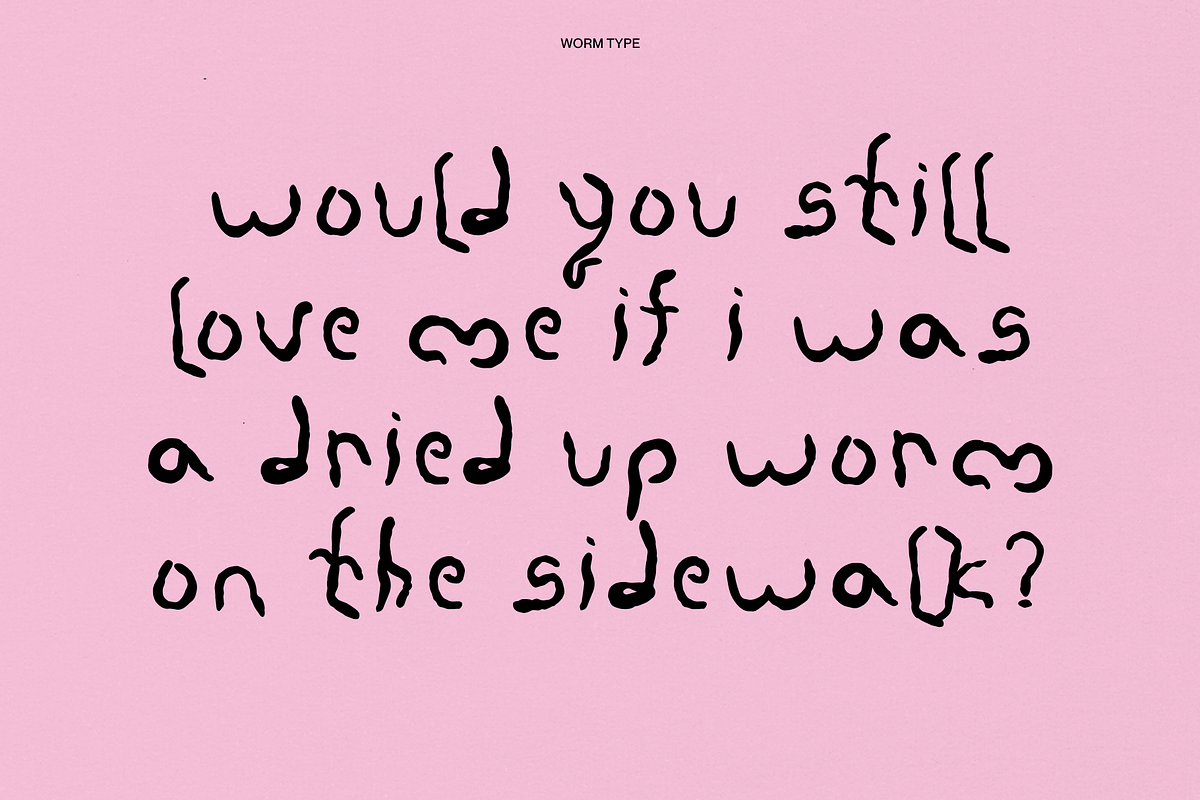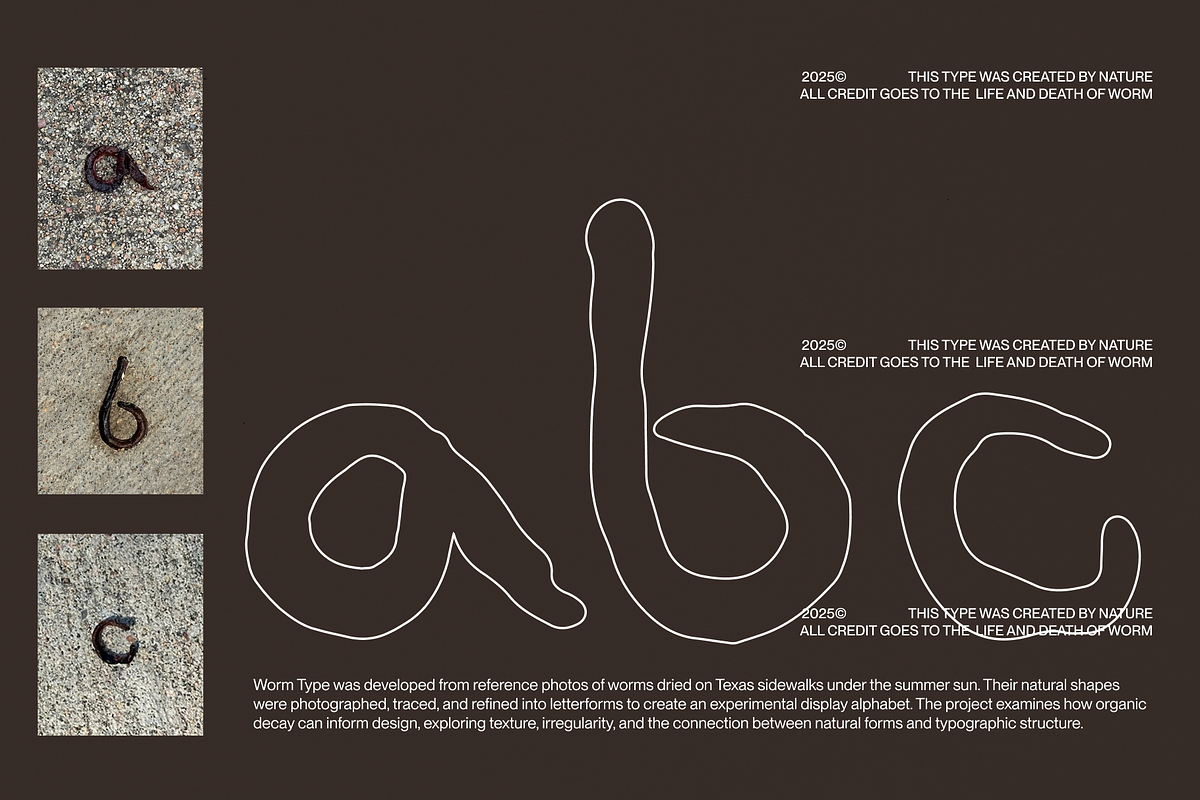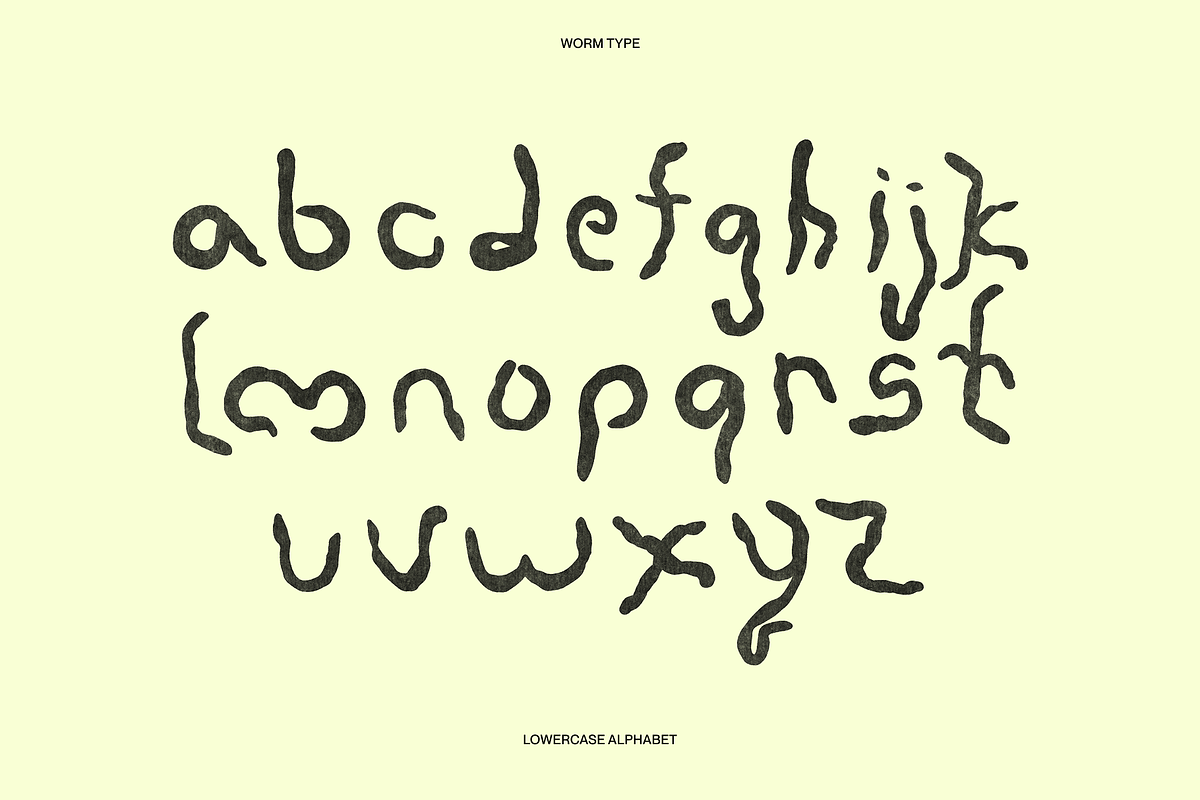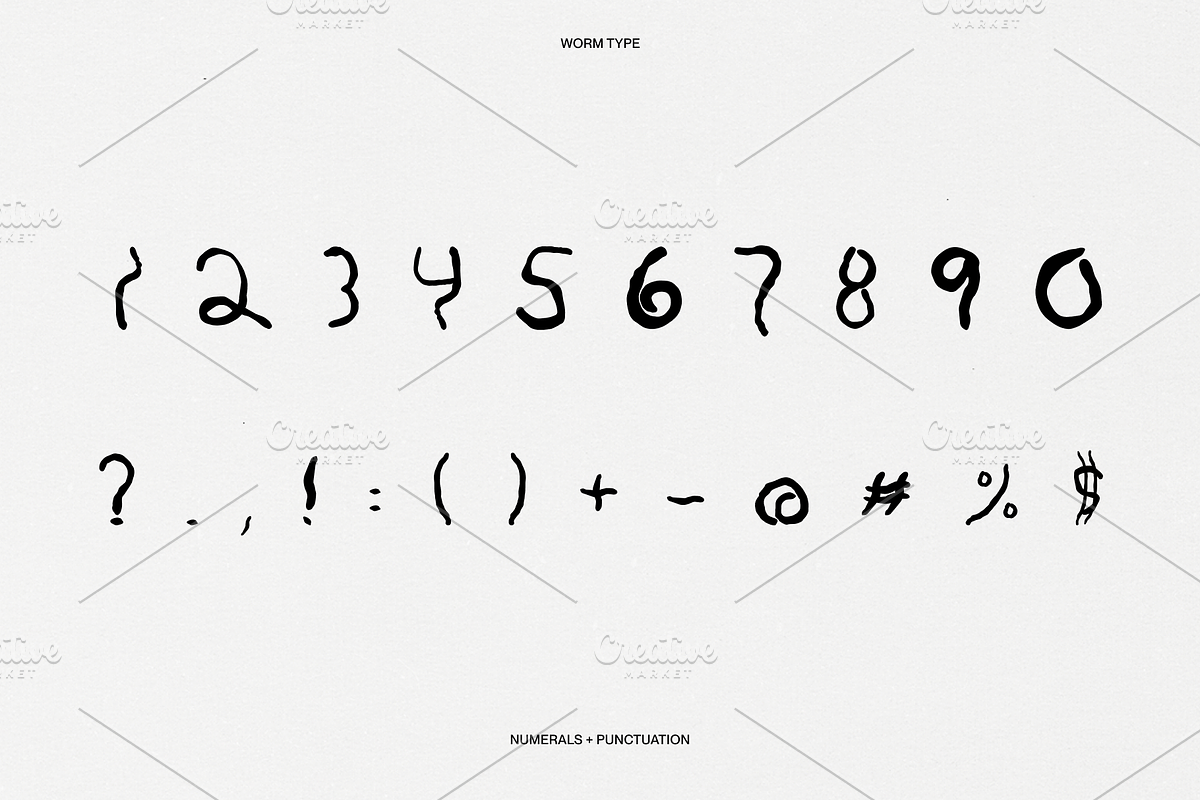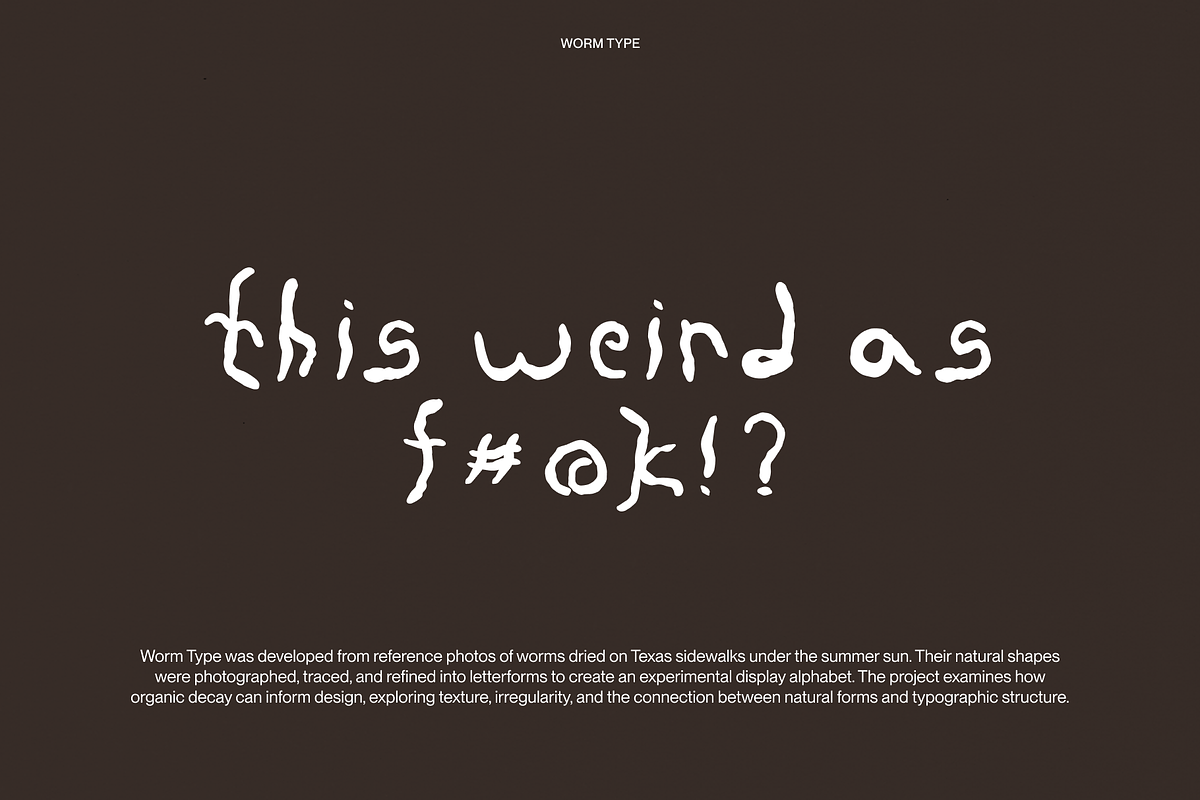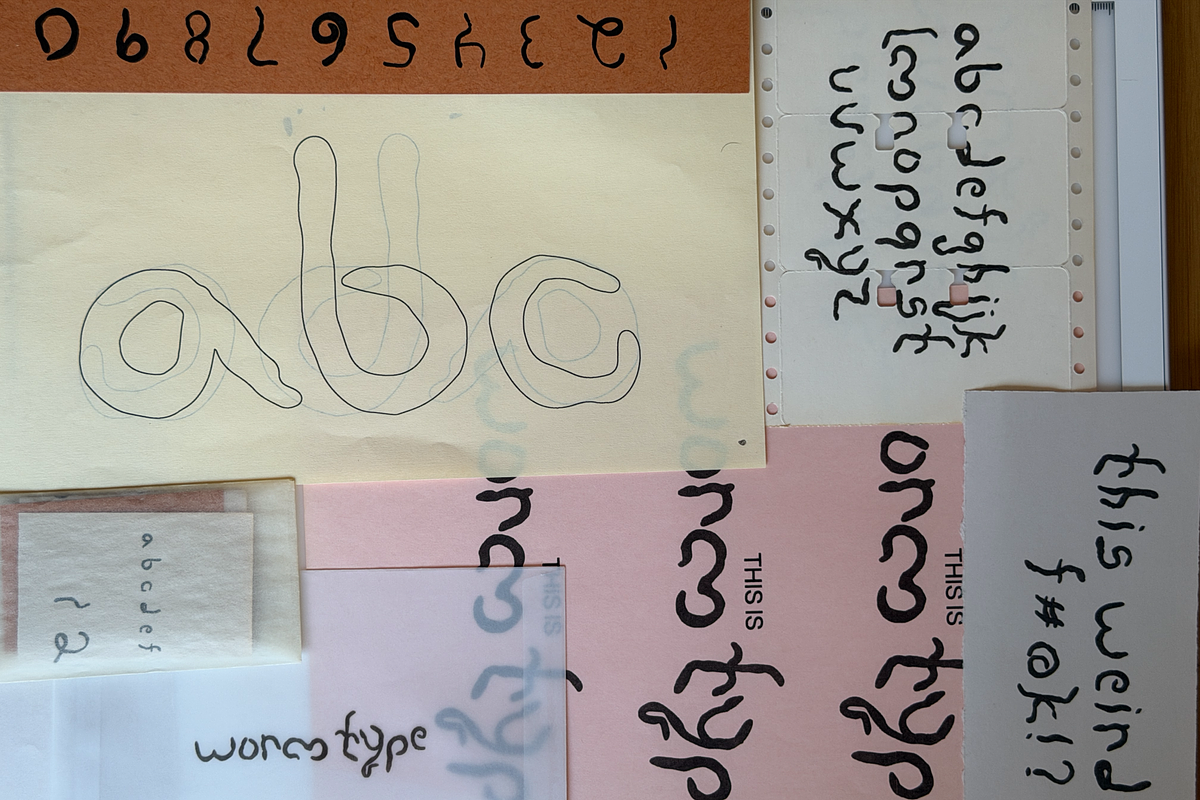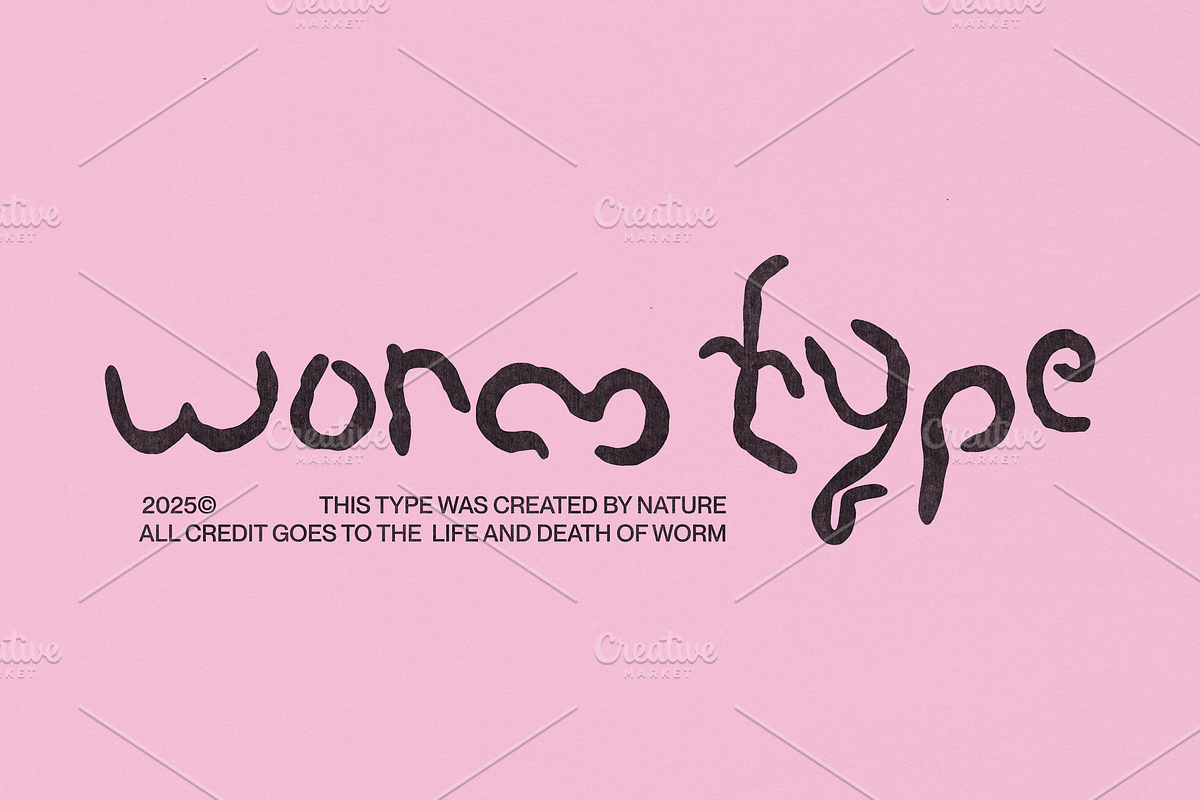
Worm Type
Worm Type was developed from reference photos of worms dried on Texas sidewalks under the summer sun. Their natural shapes were photographed, traced, and refined into letterforms to create an experimental display alphabet. The project examines how organic decay can inform design and how art imitates nature in all forms.